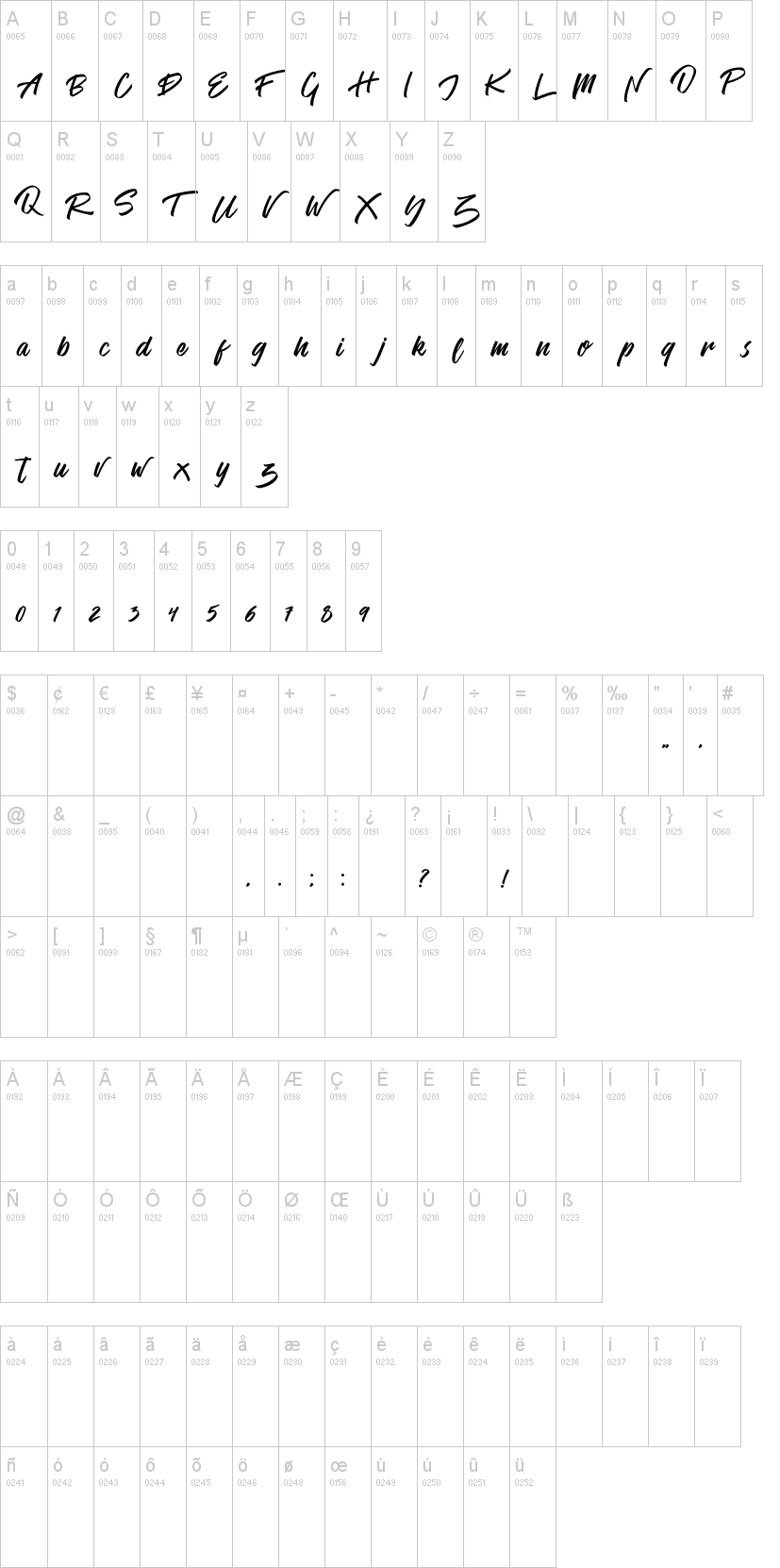
Note of the authorSay hello for Venetian Handstylish Font! Best match for logos, header, titles, prints & other creative process possibilities.
Create a extraordinary handstylish results by using Venetian Handstylish Font!